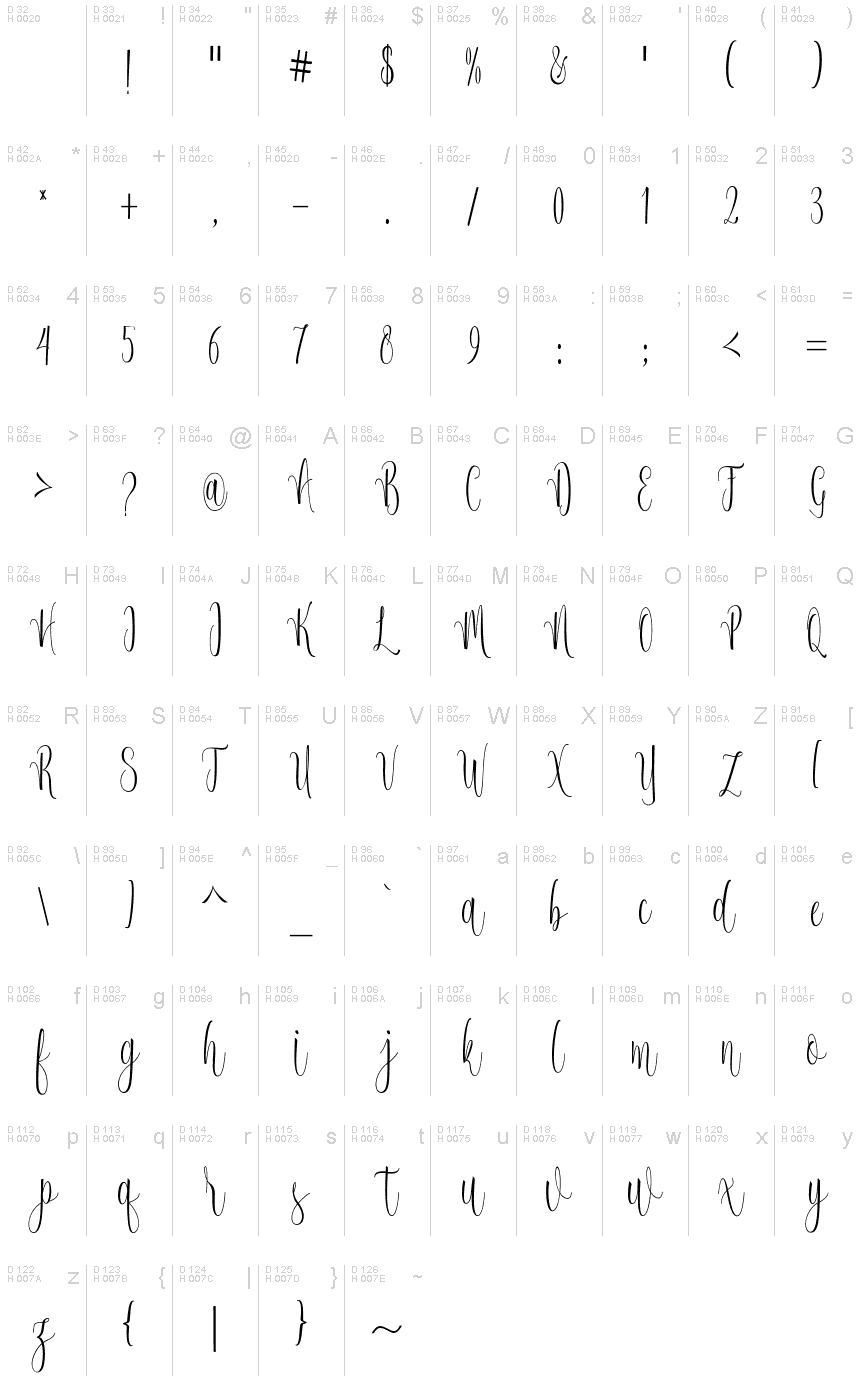
Wittering on Free
Wittering on is a script font that has the characteristic handwriting, it is very suitable to make certain label and event business and you could be using for a unique piece. Visit here to get full version